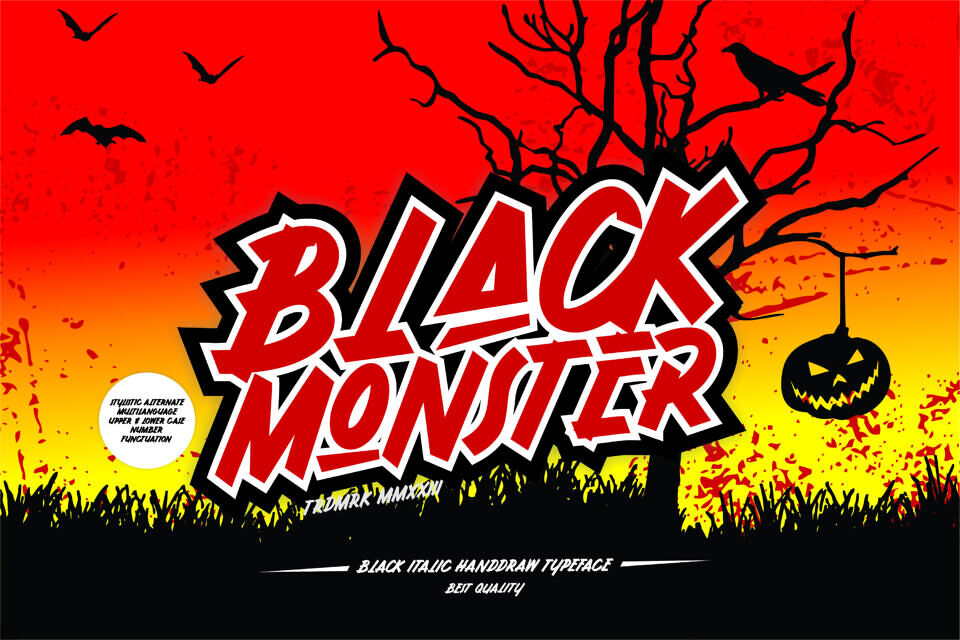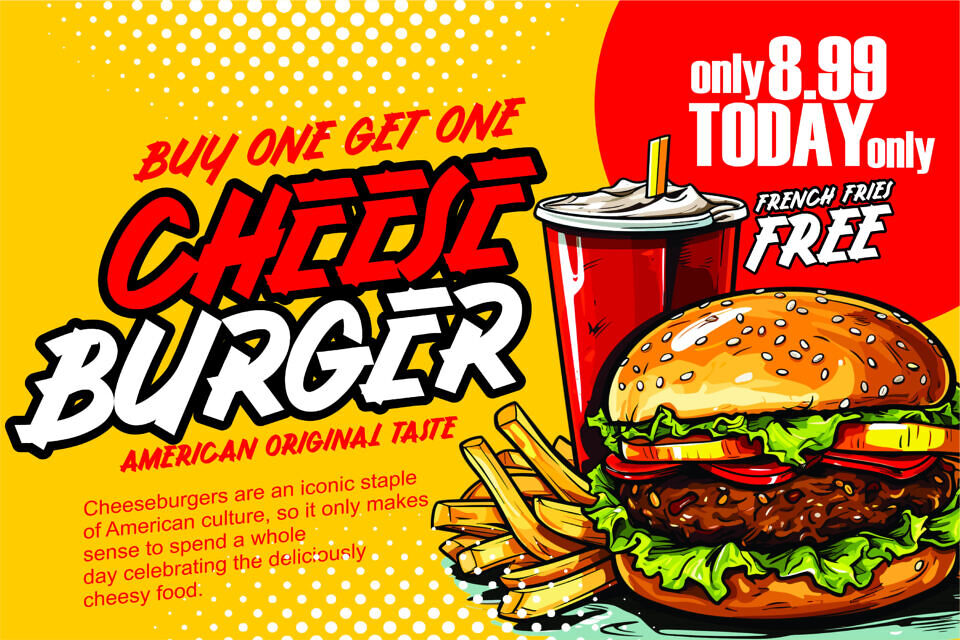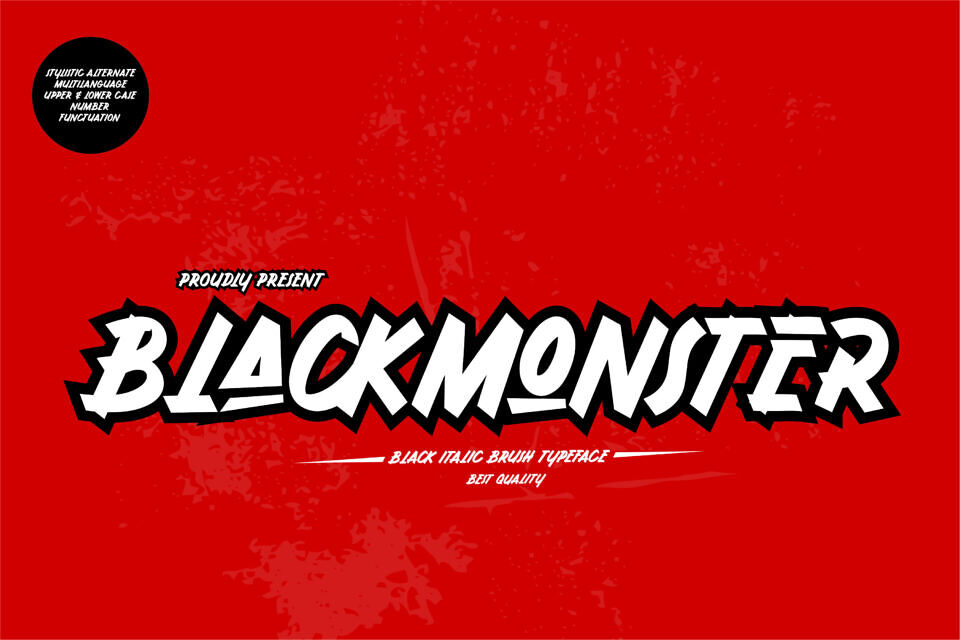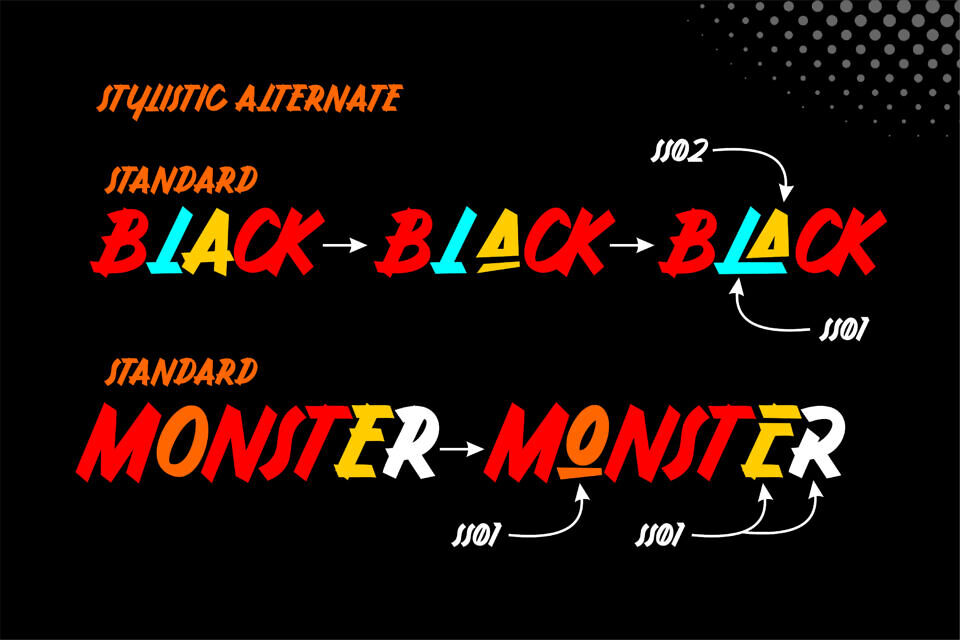
Introducing the Black Monster font—an exquisite typeface renowned for its distinctive style characterized by simplicity, clarity, and informality. This font exudes a natural spontaneity with a beautifully crafted hand that adds a touch of elegance to any design.
Its versatile aesthetic makes it an ideal choice for a myriad of applications, ranging from product branding to logos, and from overall brand identity to various promotional activities.